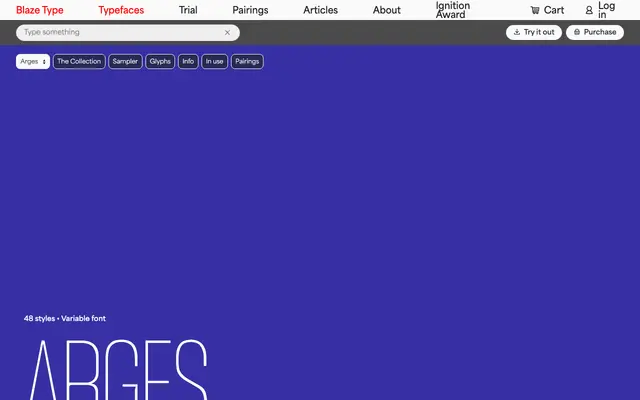
A grotesque sans-serif from Blaze Type spanning twelve weights with obliques in both Normal and Condensed widths, available as a variable font across 48 styles.
The family runs from Hairline to Extra Heavy, giving an unusually deep weight stack suited to editorial systems that need to cover everything from fine display text to heavy headlines. Obliques stand in for italics throughout, keeping the rhythm of the family consistent across both widths. Variable font support means the full weight and width range is accessible in a single file.
Arges presents as a contemporary grotesque sans-serif with oblique rather than true italic variants, spanning an unusually wide weight range from Hairline to Extra Heavy across Normal and Condensed widths.